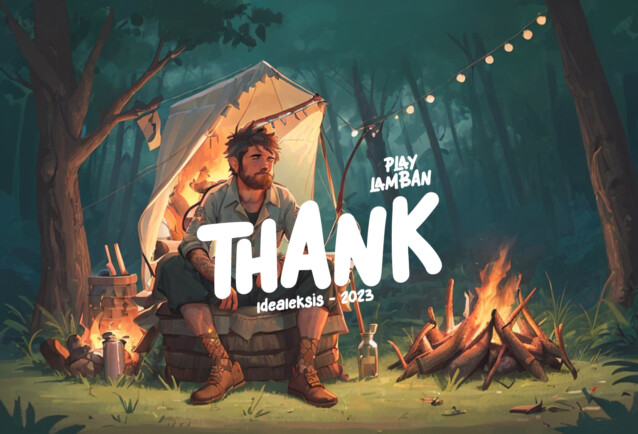
Play Lamban Font is a playful and whimsical font that exudes a sense of fun and lightheartedness. This font features unique and creative letterforms that give your text a playful and slightly mischievous character. With its distinctive design, “Play Lamban” adds a touch of cheerfulness to any project, making it a great choice for a variety of creative applications, such as children’s books, party invitations, posters, or any design project where a fun and playful tone is desired. Its unconventional shapes and charming aesthetics make it a perfect choice for adding a touch of whimsy and imagination to your text.